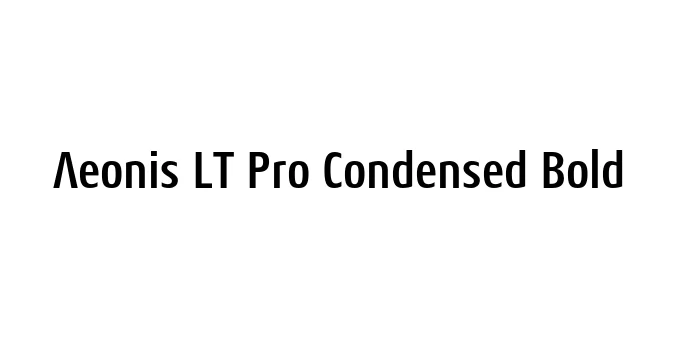
Aeonis LT Pro Condensed Bold
Designed by Erik Faulhaber
| Designer | Erik Faulhaber |
Aeonis LT Pro Condensed Bold was designed by the renowned German type designer Erik Faulhaber. The font family is a masterclass in modern geometric design, drawing inspiration from architectural clarity and the synthesis of organic and industrial forms. Released through Linotype, Aeonis is characterized by its open counters and distinct silhouettes that bridge the gap between humanistic curves and square-edged precision.
The Condensed Bold variant specifically focuses on providing a powerful, high-impact presence within a narrow horizontal footprint. This makes it an exceptional choice for designers working with limited space who still require the authority and legibility of a heavyweight sans-serif. Its technical aesthetic is balanced by a subtle warmth, making it a versatile tool for contemporary graphic design.
Aeonis LT Pro Condensed Bold Best Uses
Ideal for creating strong, recognizable corporate identities and logos.
Perfect for striking magazine headlines and space-constrained layouts.
Highly effective for digital banners and outdoor posters that need to grab attention.
Well-suited for navigation menus and mobile interfaces where horizontal space is limited.